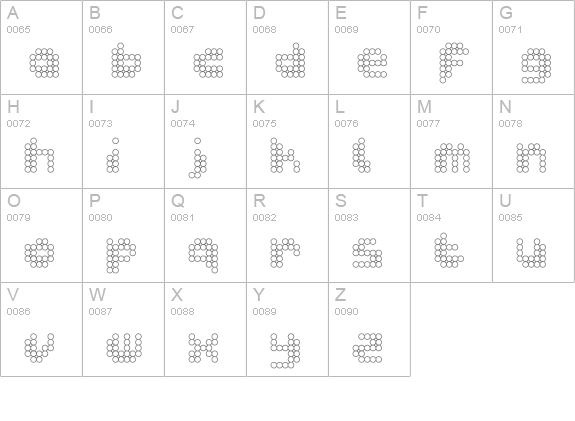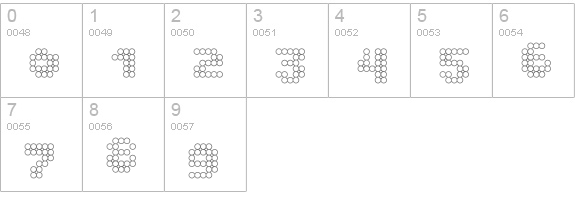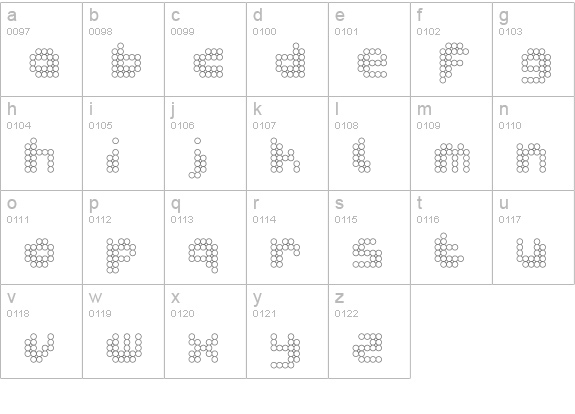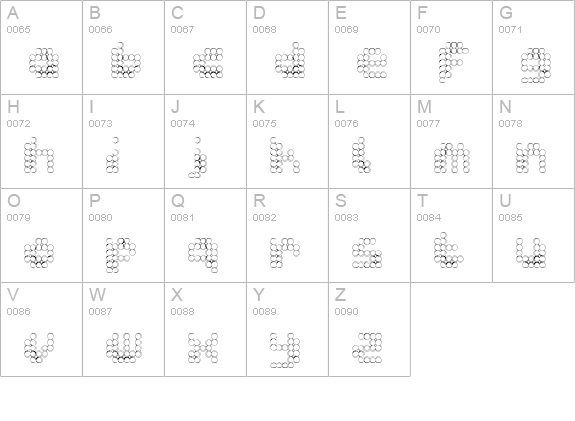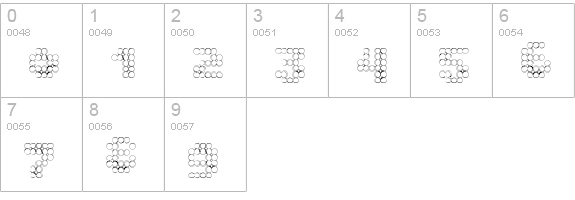
dottoacqua Font Details
Dottoacqua font is a modern and stylish typeface that exudes elegance and sophistication. Its sleek lines and unique curves make it perfect for a wide range of design projects, from branding to advertising to web design. The font's clean and clear appearance ensures readability while still adding a touch of flair to any text. The best part about Dottoacqua font is that it is completely free to download at FontsMarket.com. This means that you can access this high-quality font without any cost, making it a fantastic option for designers on a budget or anyone looking to add a touch of class to their projects without breaking the bank. With its versatility and accessibility, Dottoacqua font is sure to become a go-to choice for designers looking to make a statement with their typography. Download it today and see how it can elevate your designs to the next level.